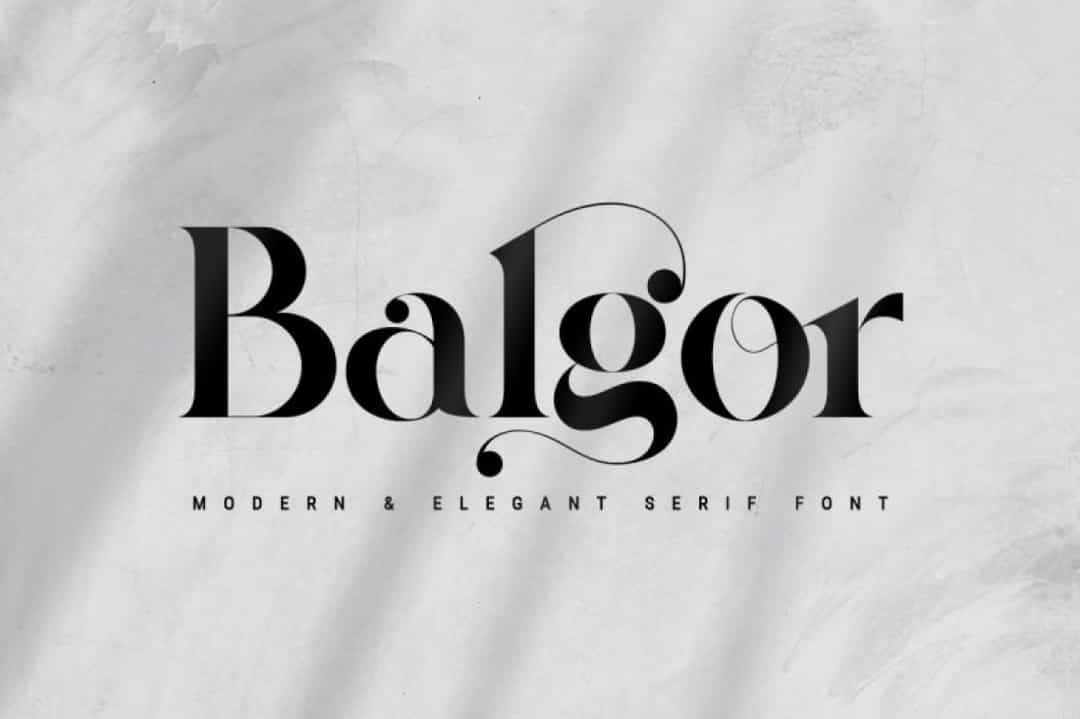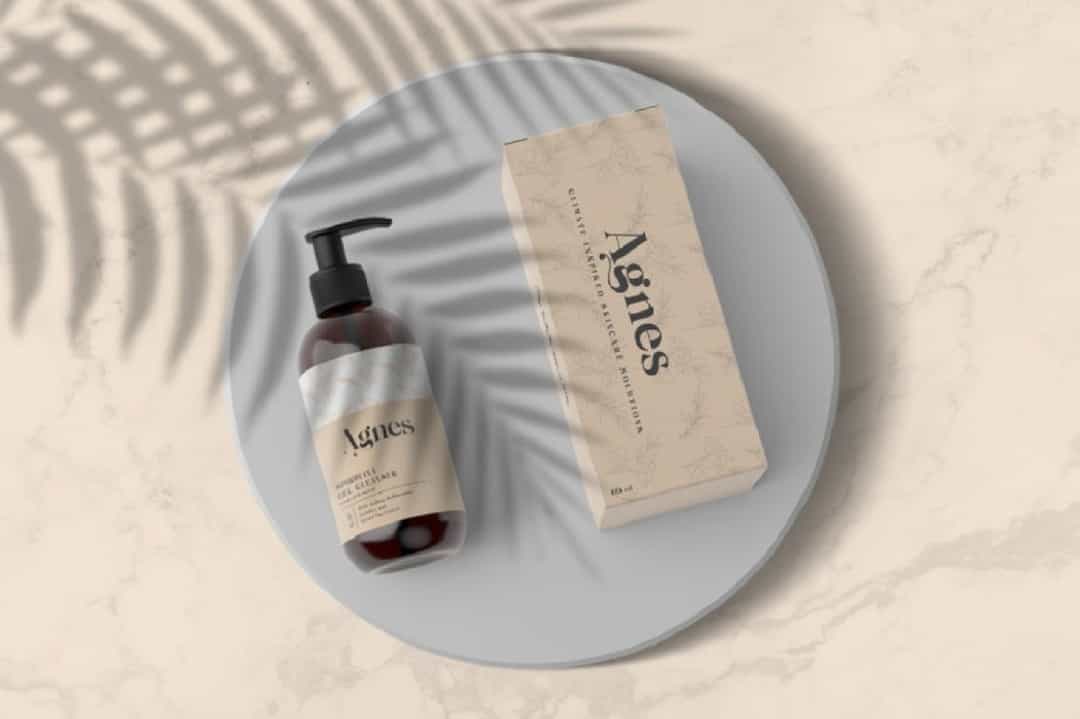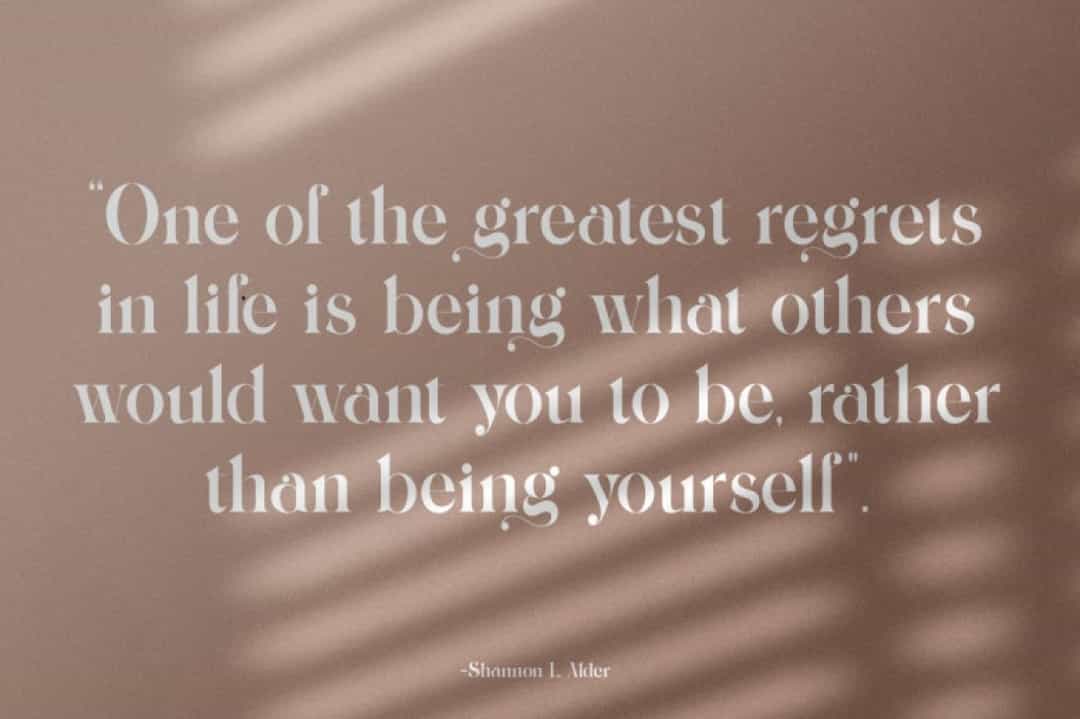
Balgor Serif font is the perfect example of a modern, elegant, and sophisticated font that belongs to the serif family. As characterized by the smooth curves of this font, it is perfect for creating a powerful impression in editorial or fashion designs – you can’t help but notice it in your designs! You will definitely be satisfied with the result of applying Balgor Serif into them.